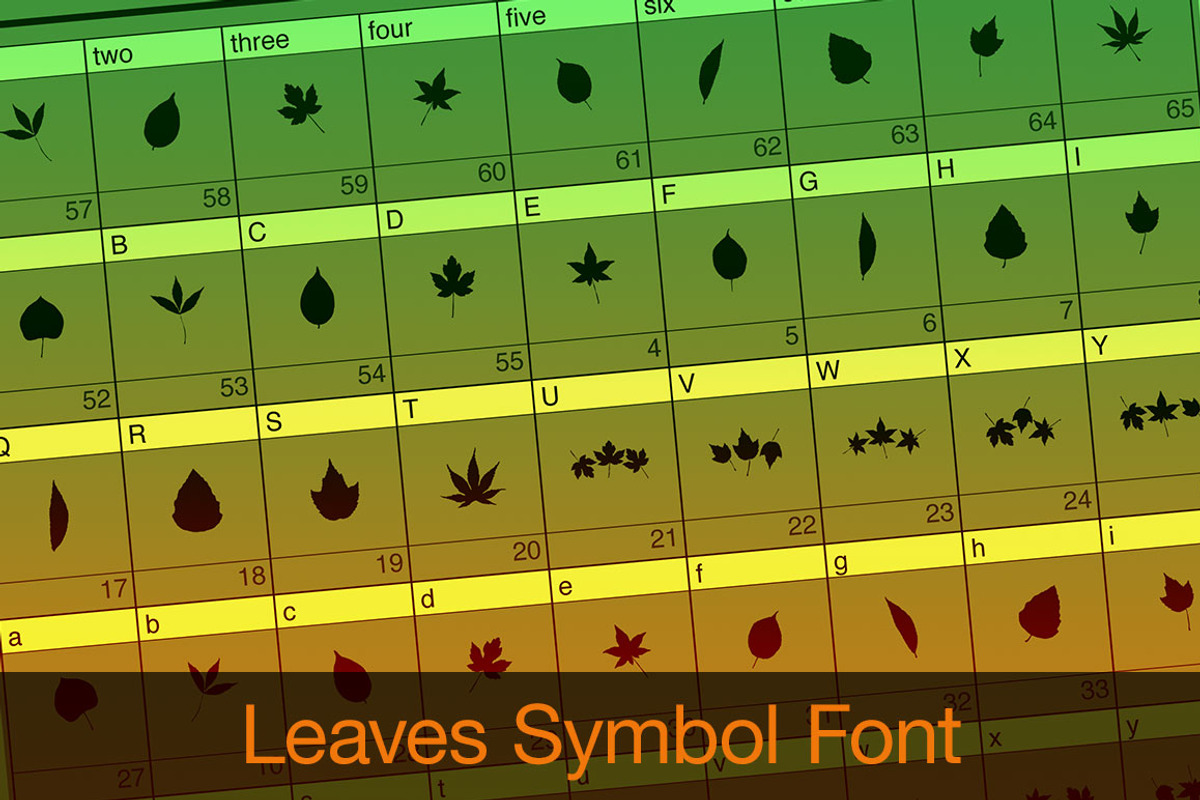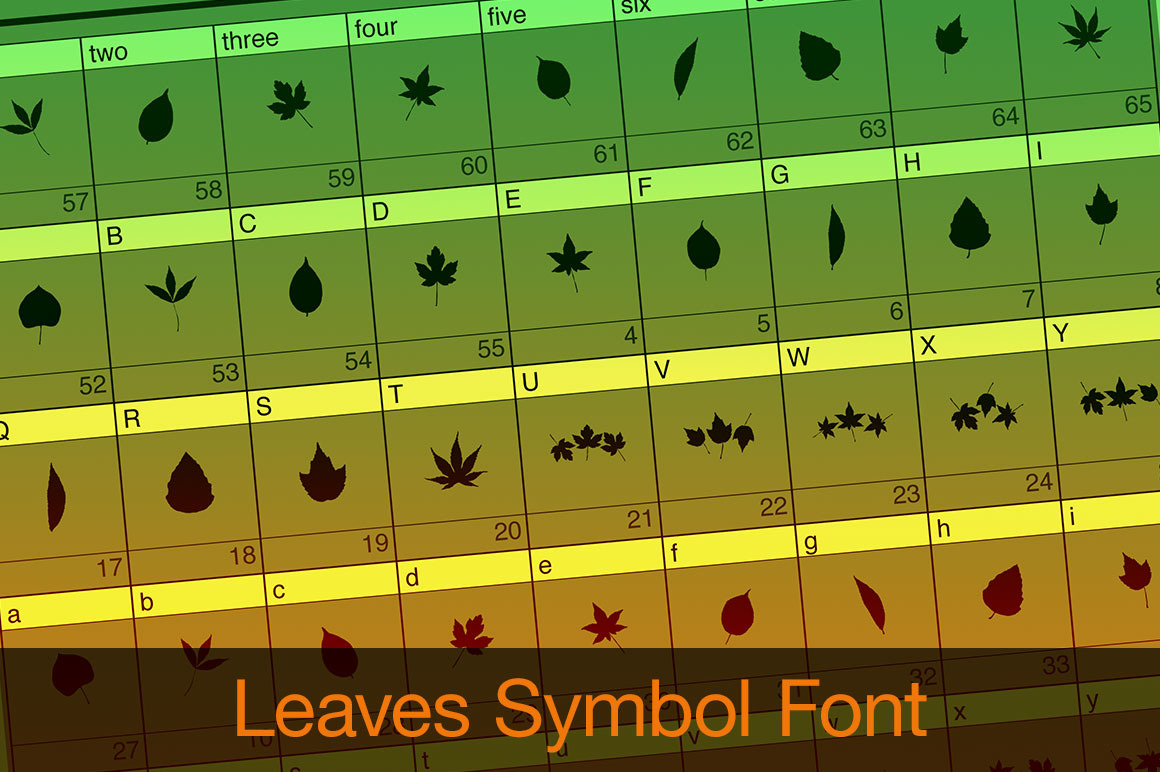
Leaves Symbol Font
Professional artists and designers will appreciate all the ways you can combine these elements or use a single one for a simple elegant logo design.
Scrapbookers can create beautiful and complex page designs with a few clicks. Thousands of uses equal thousands of ideas!